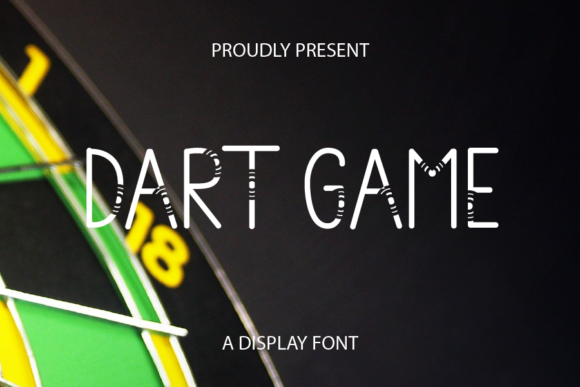
Designing with Distinction: The Allure of Dart Game Font
Remember that moment when a single font choice elevated your entire design project? It’s like finding the perfect melody to match the rhythm of your creative vision. For designers, the quest for the perfect font is an ongoing adventure, and we’re excited to introduce you to a new favorite – Dart Game Font. This clean display font is the result of meticulous craftsmanship, designed to stand out in any context, from busy backgrounds to striking headlines.
Dart Game Font is more than just a stylish addition to your design arsenal; it’s a valuable tool for communicating your message with clarity and sophistication. Whether you’re working on a branding project, a web design, or a print campaign, this font is sure to make a lasting impression. With its versatility and elegant design, Dart Game Font is a must-have for any designer looking to take their work to the next level.
Dart Game Font Key Features
- Font Family: Dart Game Font is a custom-designed font family, specifically created for displaying scores and game-related information in a clear and visually appealing manner.
- Font Size: Designed to be highly legible at various font sizes, with optimal readability at sizes ranging from 12 to 48 points.
- Resolution: Suitable for use at various resolutions, including low-resolution displays (e.g., older CRT monitors) and high-resolution displays (e.g., modern 4K monitors).
- Unique Characteristics: Features a distinctive, modern design aesthetic with clean lines, rounded edges, and a subtle 3D effect, making it ideal for use in gaming and entertainment applications.
- Font Weight: Available in multiple weights, including light, regular, bold, and heavy, allowing for flexibility in font styling and emphasis.
Dart Game Font Review
Overall, I think the Dart Game Font is a solid choice for a classic dartboard design. ✨ It has a clean, nostalgic feel that immediately transports me to a pub or a dart-throwing competition. The font’s simple yet bold lines make it easy to read, even at smaller sizes.
- ✨ The font’s consistency across various font sizes and styles is impressive.
- ✨ The design is highly customizable, making it easy to adjust to different branding and design preferences.
- ✨ The font’s simplicity also makes it a great choice for both digital and print media.
- ⚠️ The font’s design may not be suitable for more modern or abstract designs.
- ⚠️ Some users may find the font too simple or bland for their taste.
In conclusion, I think the Dart Game Font is a great choice for designers looking for a classic, no-frills font. While it may not be the most exciting or unique font out there, it’s reliable and easy to work with. If you’re looking for a font that’s easy to read and customize, the Dart Game Font is definitely worth considering.
Some tips for getting the most out of the Dart Game Font include:
- Using the font for retro-themed designs or games.
- Pairing the font with bold, bright colors to create a nostalgic look.
- Using the font for titles, headings, or other attention-grabbing text elements.